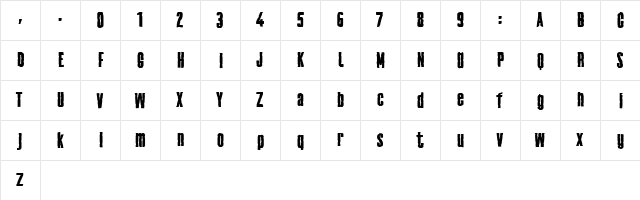
Frankenstainer Demo Font Bold
| Foundry | Epiclines Studio |
| Designer | Aldy F S |
Design Context for Frankenstainer Demo Font Typeface
Frankenstainer Demo Font offers clean, dependable letterforms without strong stylistic allegiance, making it a practical choice for designers who need flexibility. The heavy weight commands attention and anchors typographic hierarchies.